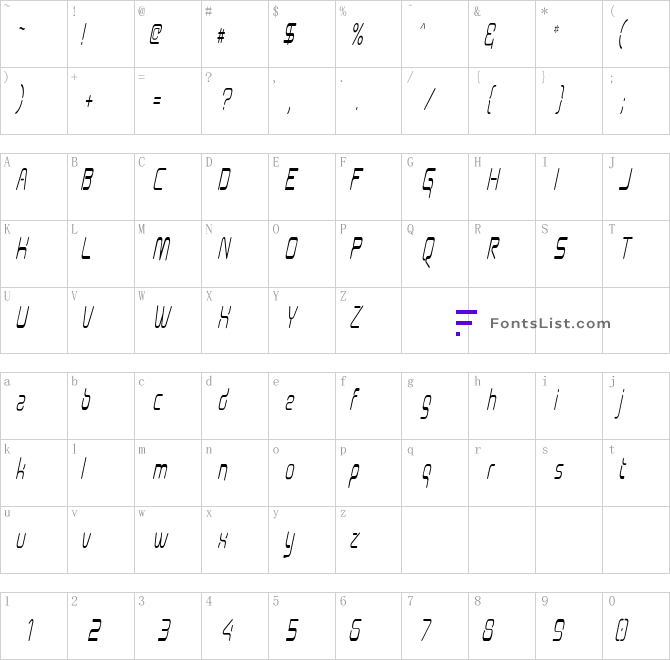
- Font Name:Aunchanted Condense Oblique
Aunchanted-Condense-Oblique.ttf is a very beautiful artistic font, Aunchanted-Condense-Oblique.ttf is widely used in the design and printing of various books and pictures,Aunchanted-Condense-Oblique.ttf has a strong visual impact,Aunchanted-Condense-Oblique.ttf is a commonly used font in newspapers, magazines and books, and is used in posters, e-commerce Poster design, store design, logo design, font design and other fields.Aunchanted-Condense-Oblique.